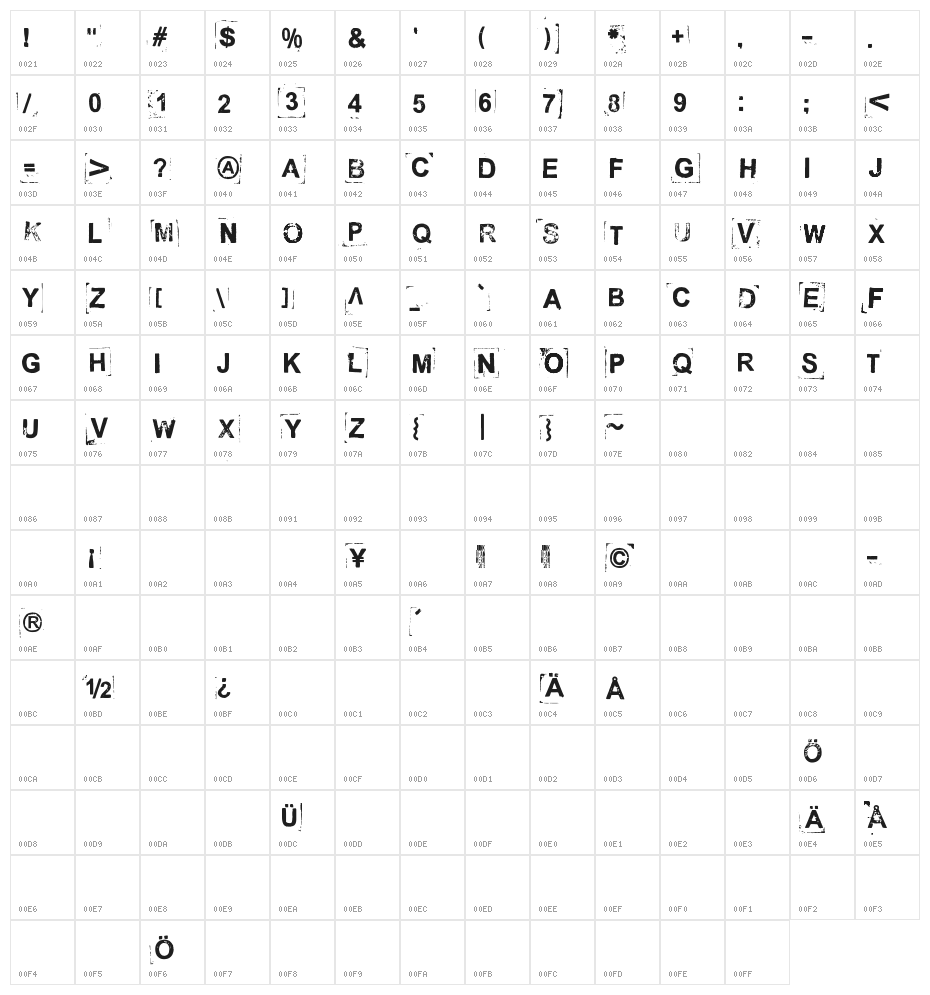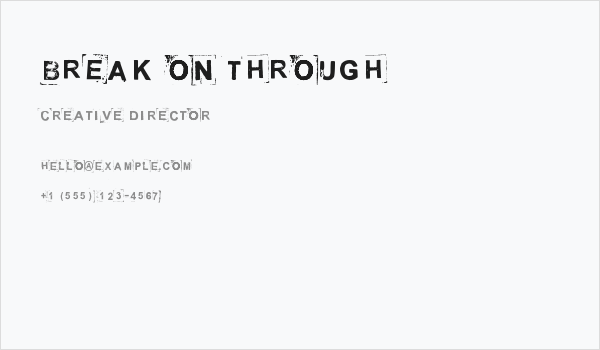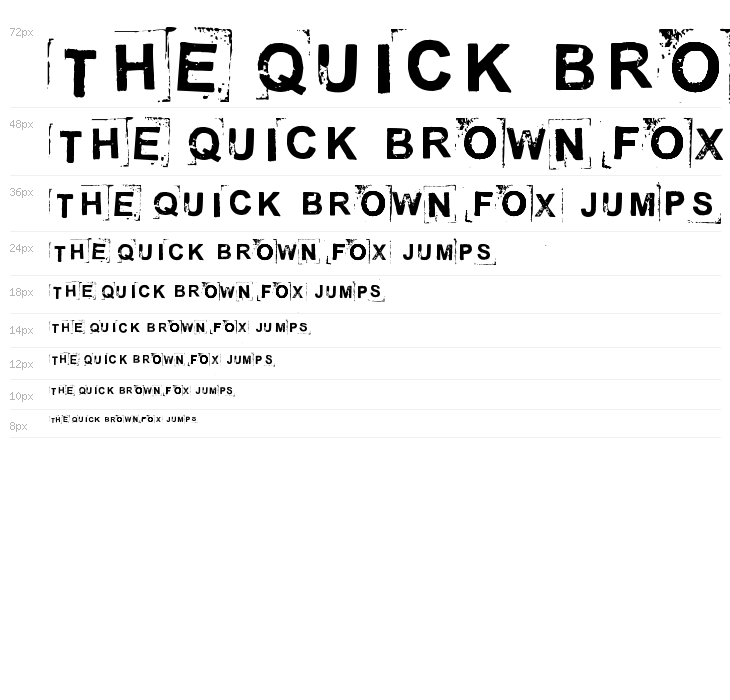
Break on through Font
Break on through Description
This font features a distressed, grunge style reminiscent of old typewriter or stamped lettering. Each character appears as if it has been stamped with varying pressure, resulting in an uneven, textured appearance. The letters are bold and uppercase, with a slightly rough edge that adds to the vintage, industrial feel. The numbers and special characters follow the same aesthetic, providing a cohesive look across all glyphs. This font's unique style makes it stand out, ideal for projects that require a rugged, authentic touch.
| Overall Style | Vintage |
| Proposed Projects | Ideal for album covers, posters, branding for edgy or vintage-themed products, and any design requiring a bold, gritty aesthetic. |